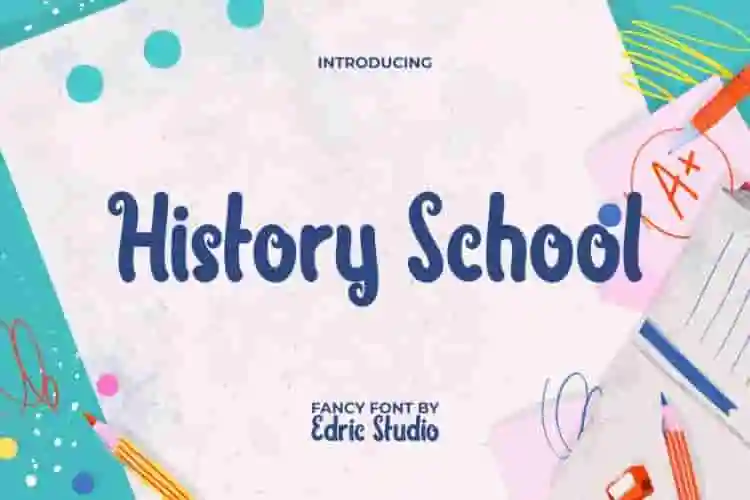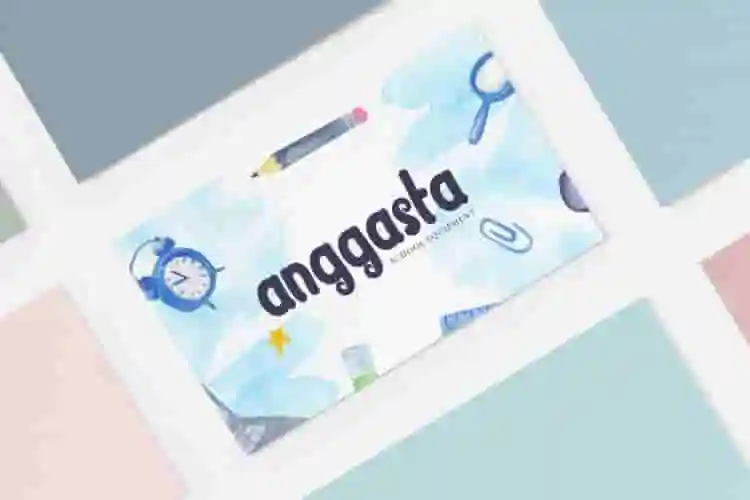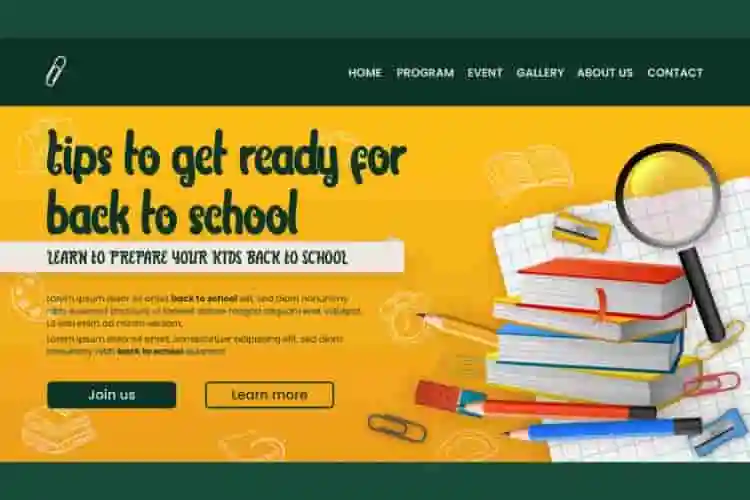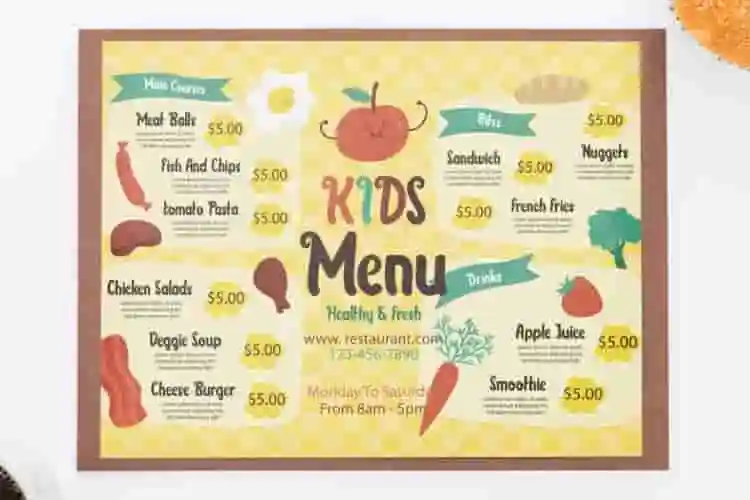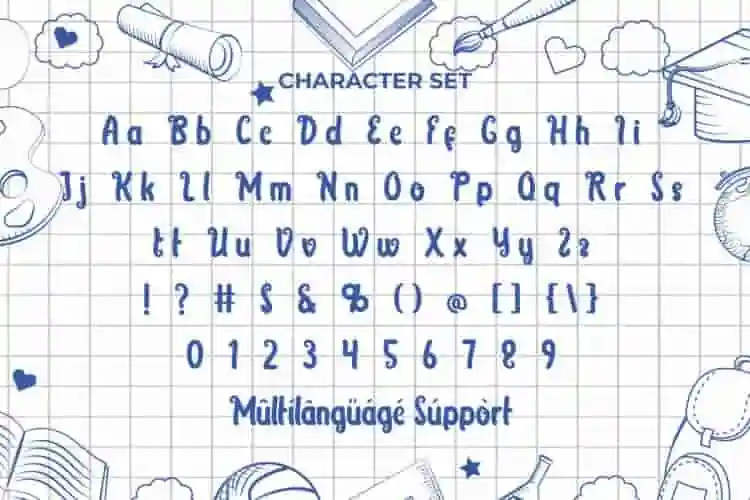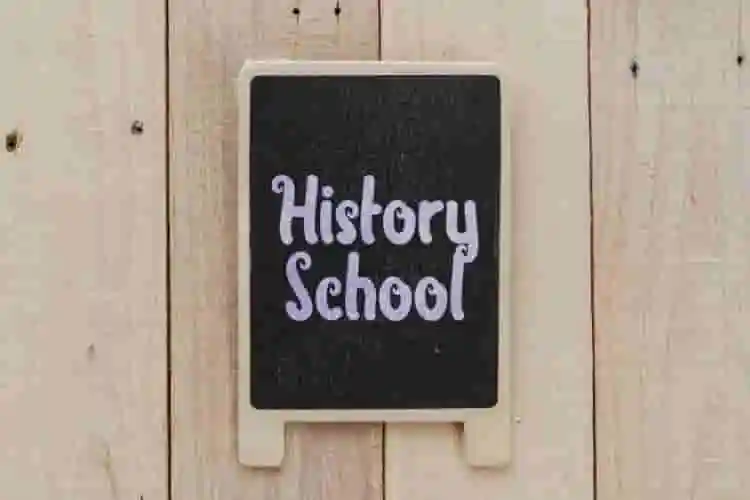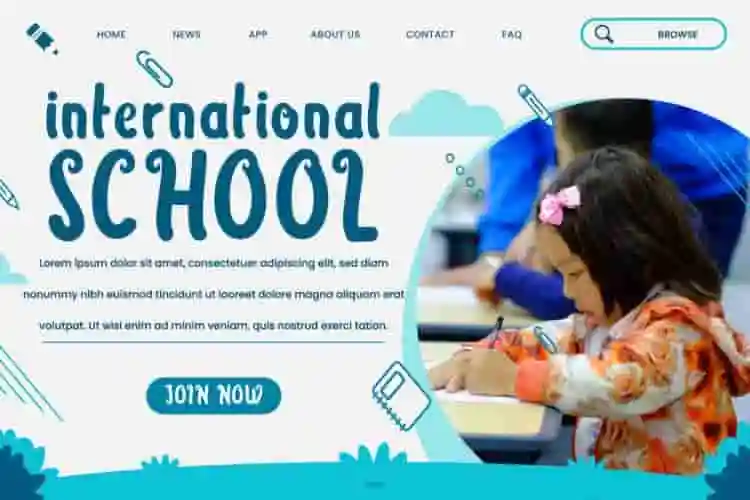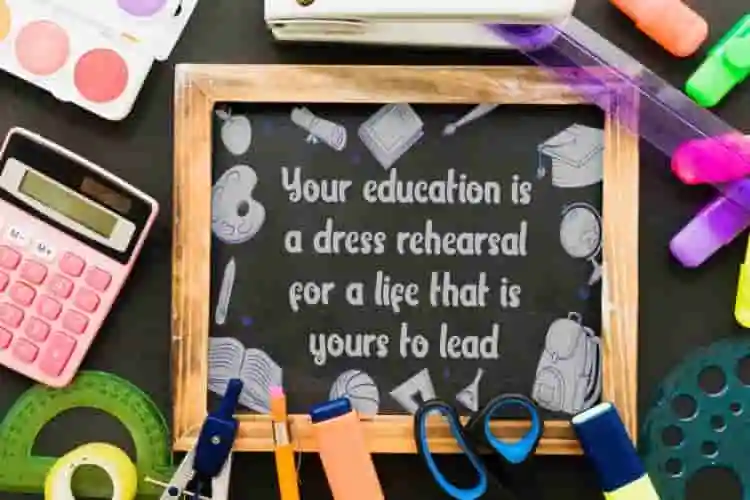
History School Font is a curly fancy handwriting font adapted from cute girls diary note. Made even nice to bring joy to the world of fun. It will give an adorable touch to your design, such as apps, billboard, blogs, business card, cover, header, logos, menu pamphlet, poster, product packaging, screen print, signage, sticker, title, website, and much more.
Introducing History School Handwriting Font – a warm, nostalgic, and authentic typeface designed to bring back the charm of handwritten school notes and vintage penmanship. With its natural strokes and classic handwritten feel, this font is perfect for projects that require a personal, friendly, and timeless touch. From invitations and greeting cards to logos, packaging, and social media content, History School Handwriting Font adds personality and authenticity to every design.
History School Handwriting Font comes with a full set of Uppercase and Lowercase letters, Number, Punctuation and Symbol. The font has a full weight with waves at each end giving it a genuine handmade feel, it can be adapted to any industry such as accessories, ads, birthday parties, content creator, craft, education, fashion, gift & souvenirs, graphic design, kindergarten, playground, printing, publishing, restaurant, stationery store, web designer, writer, and anything that blends perfectly with this font!